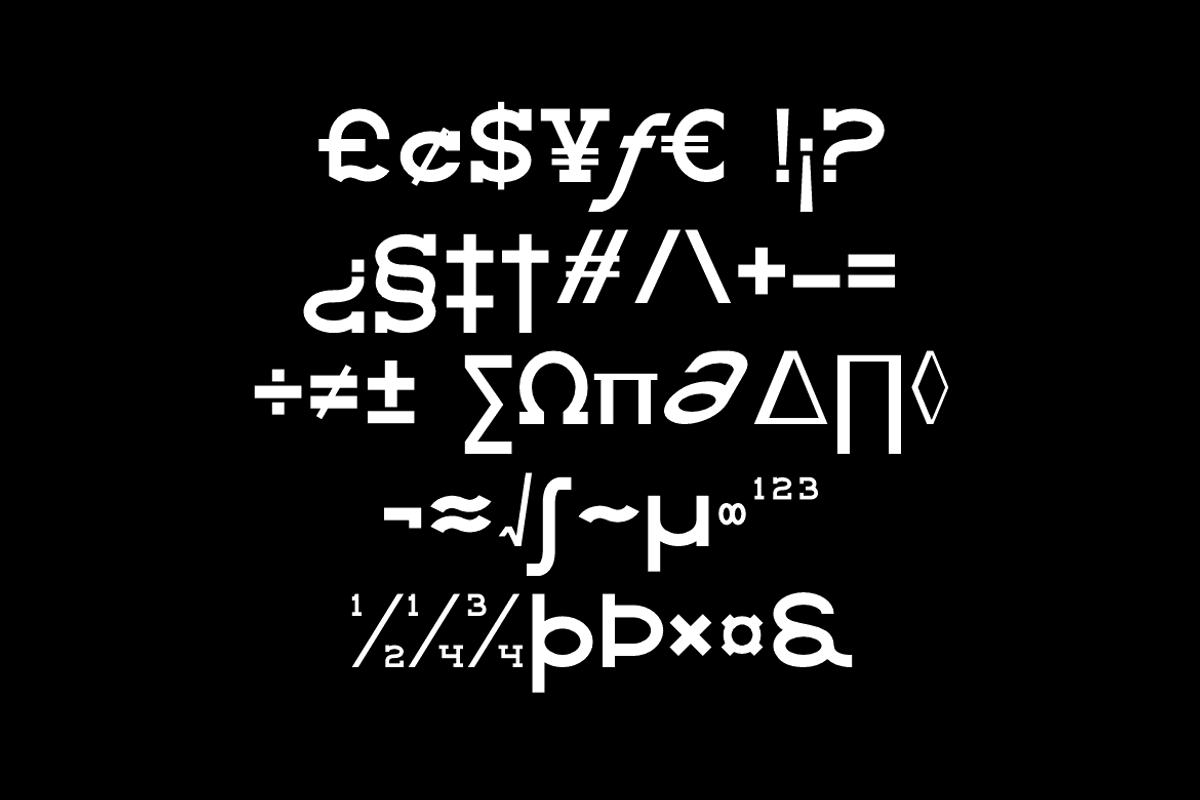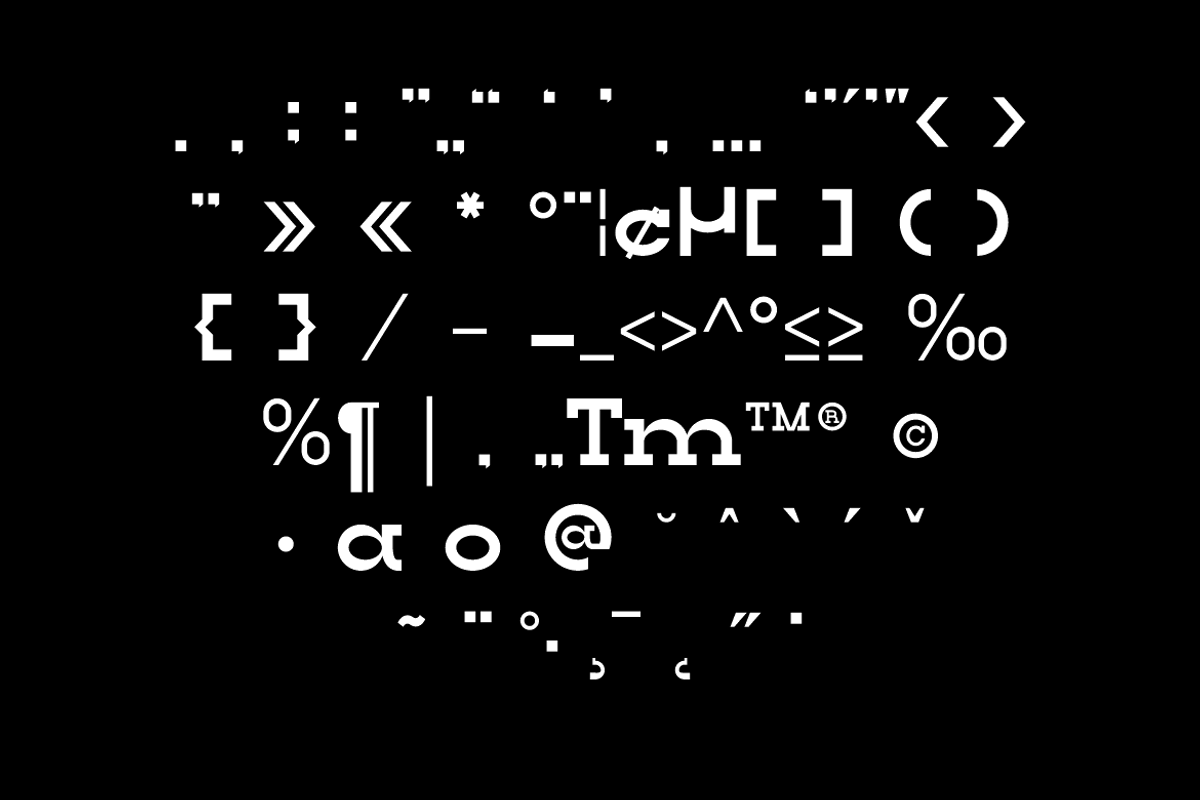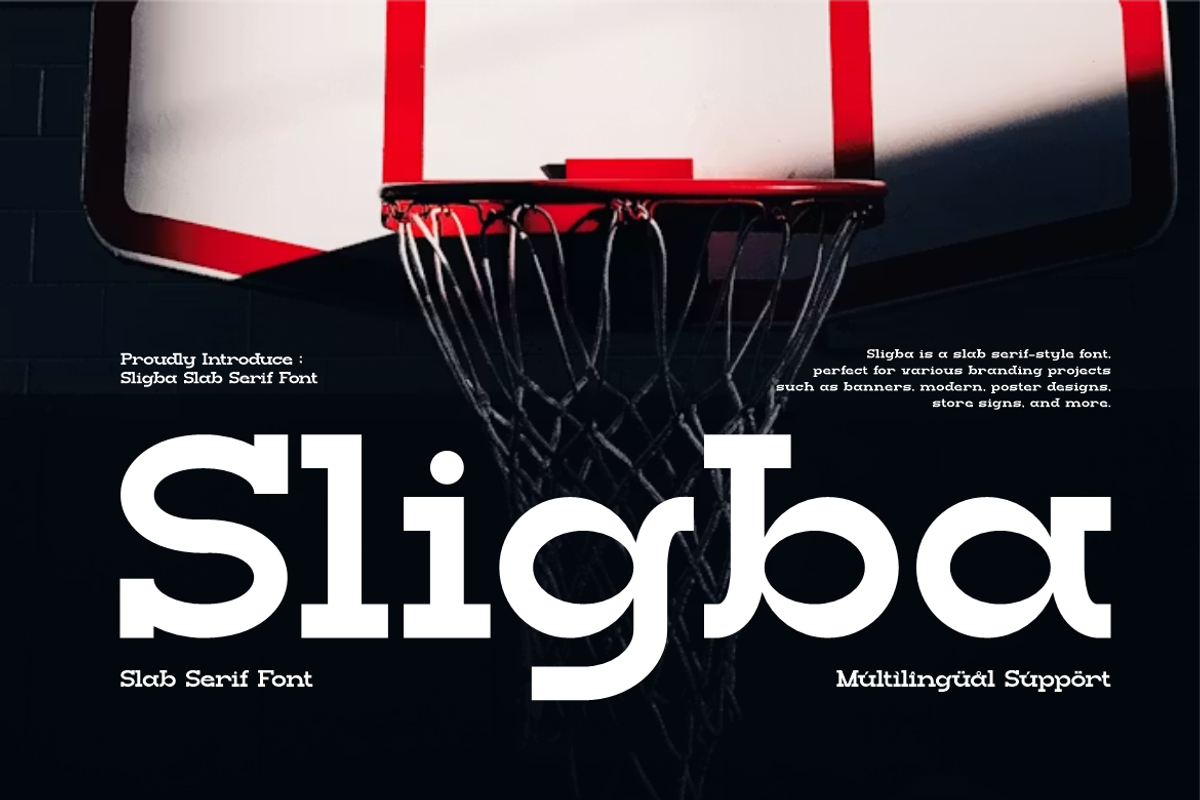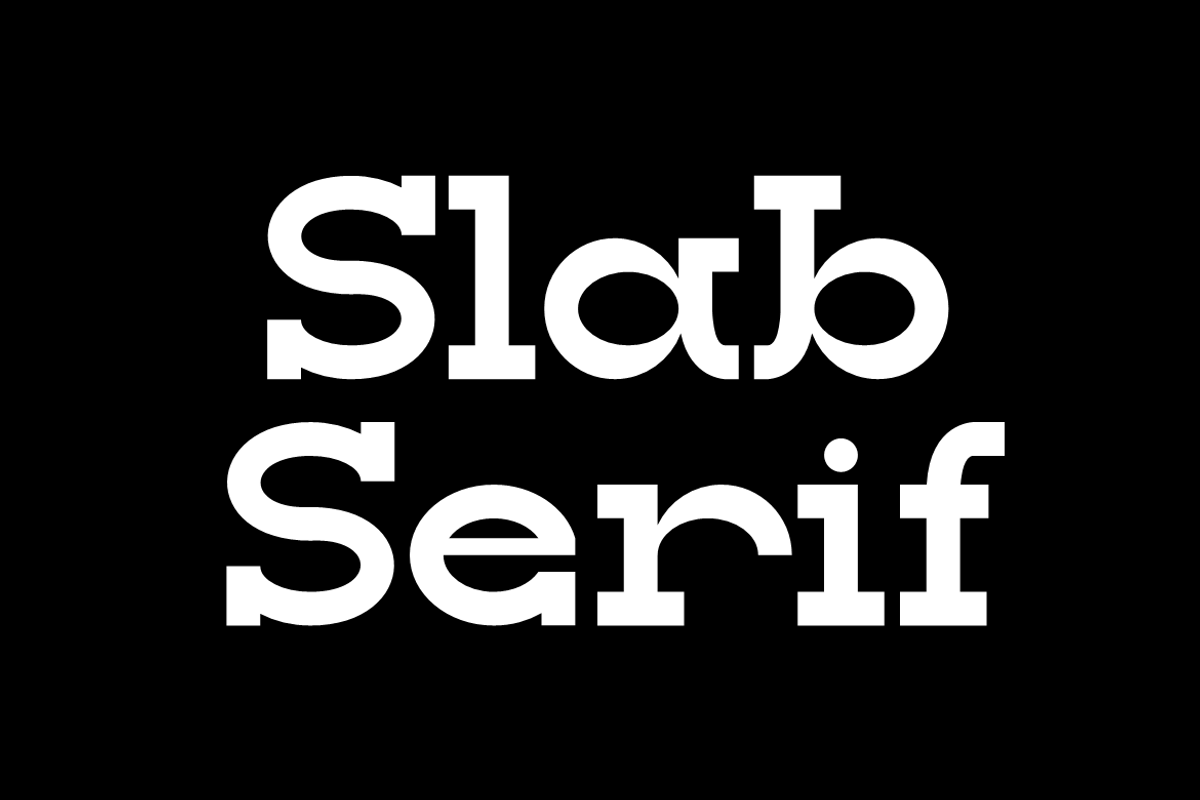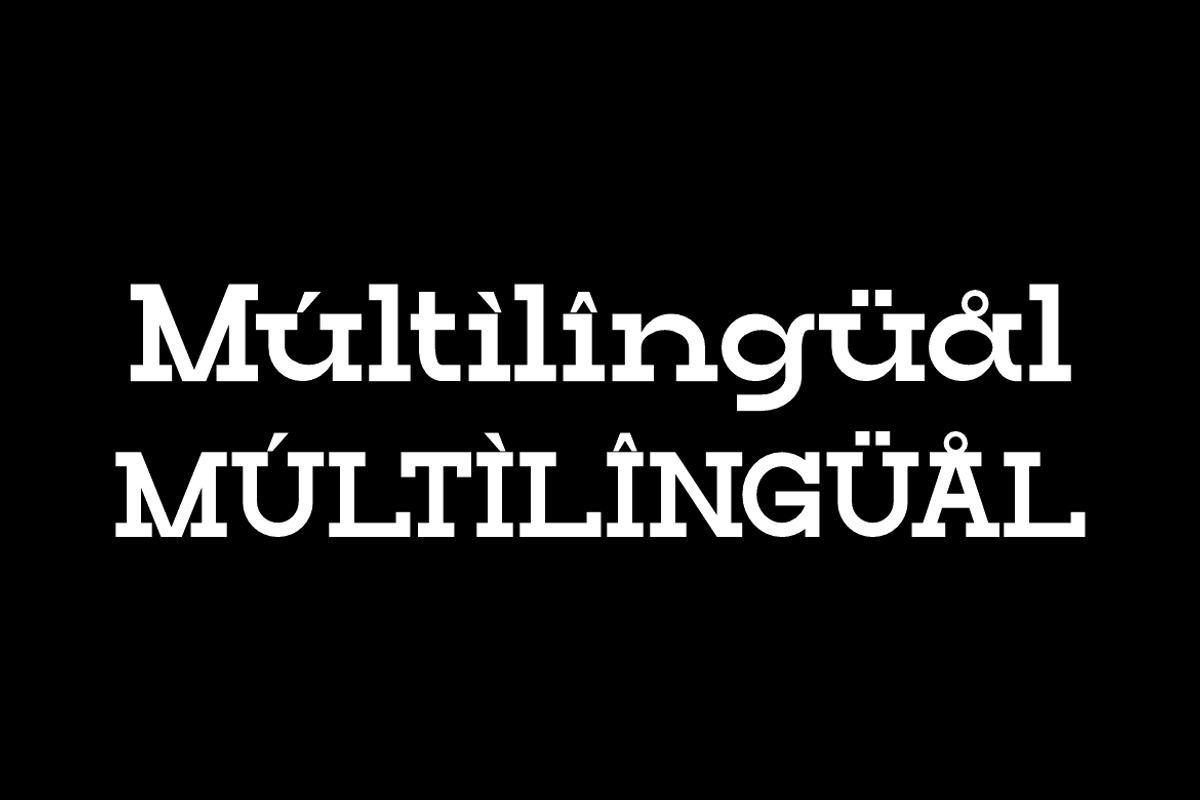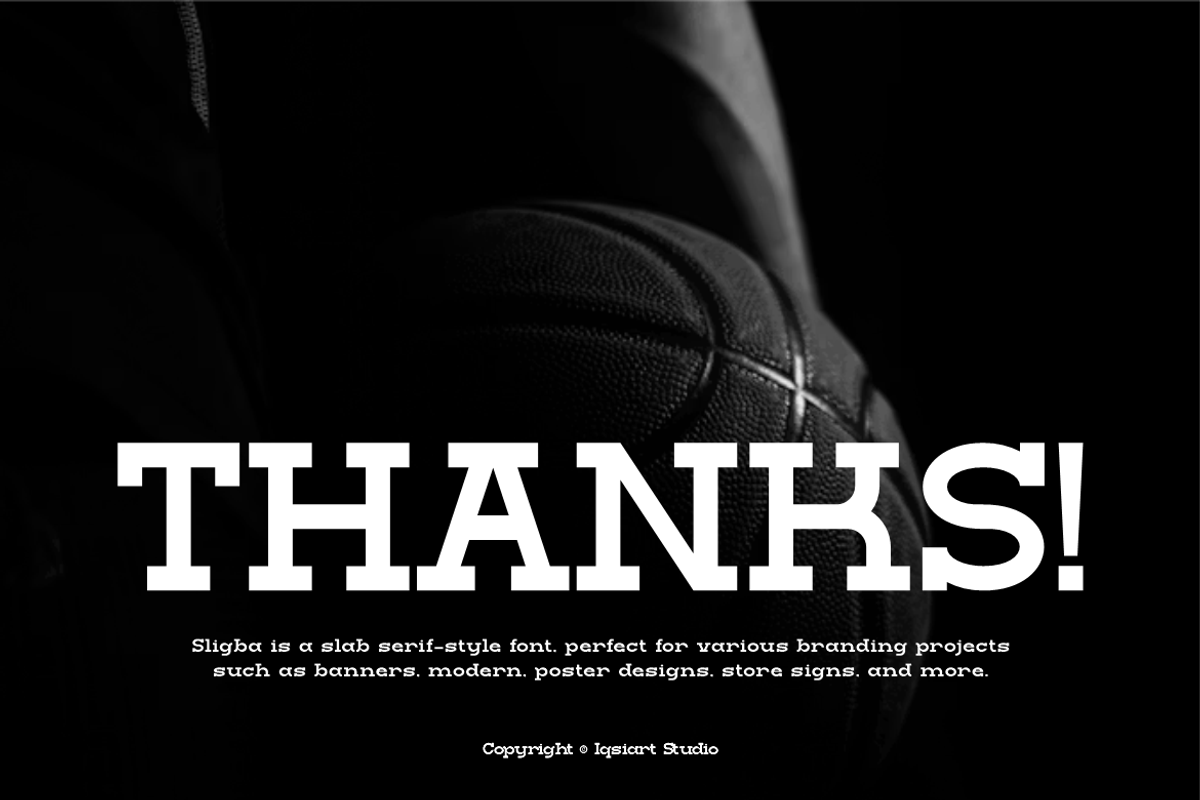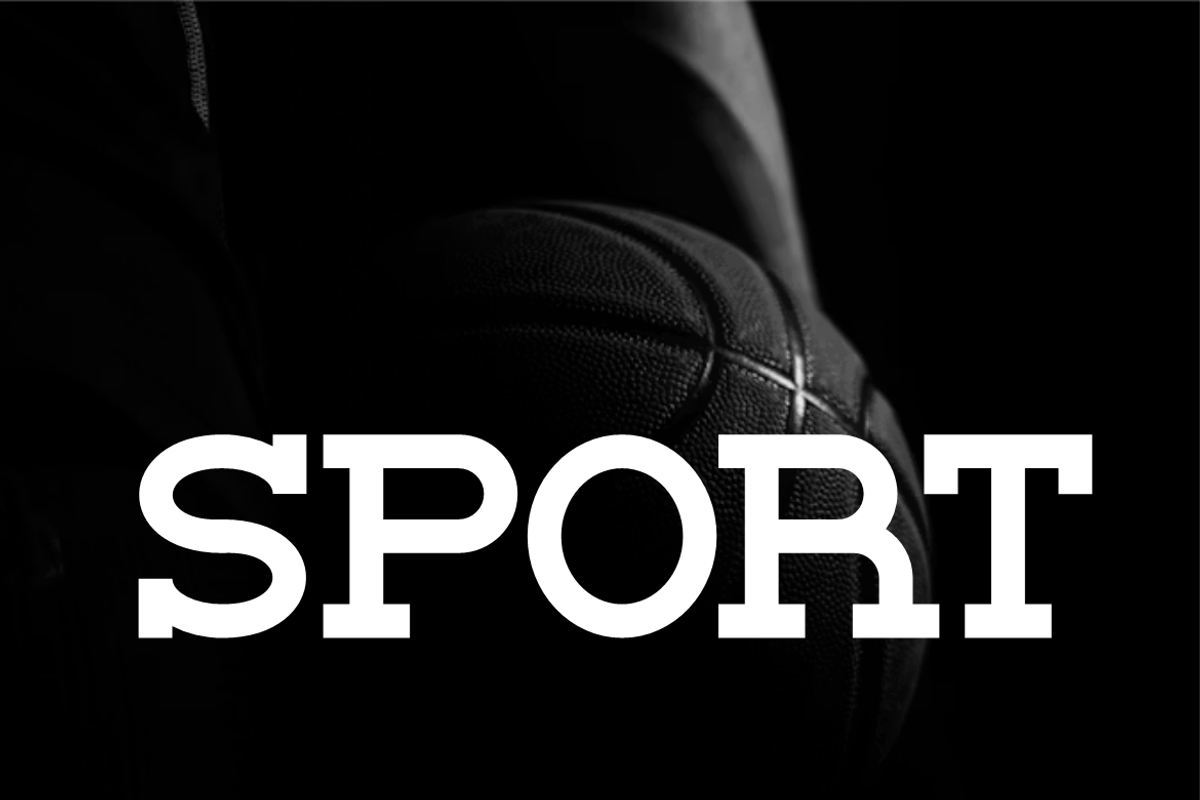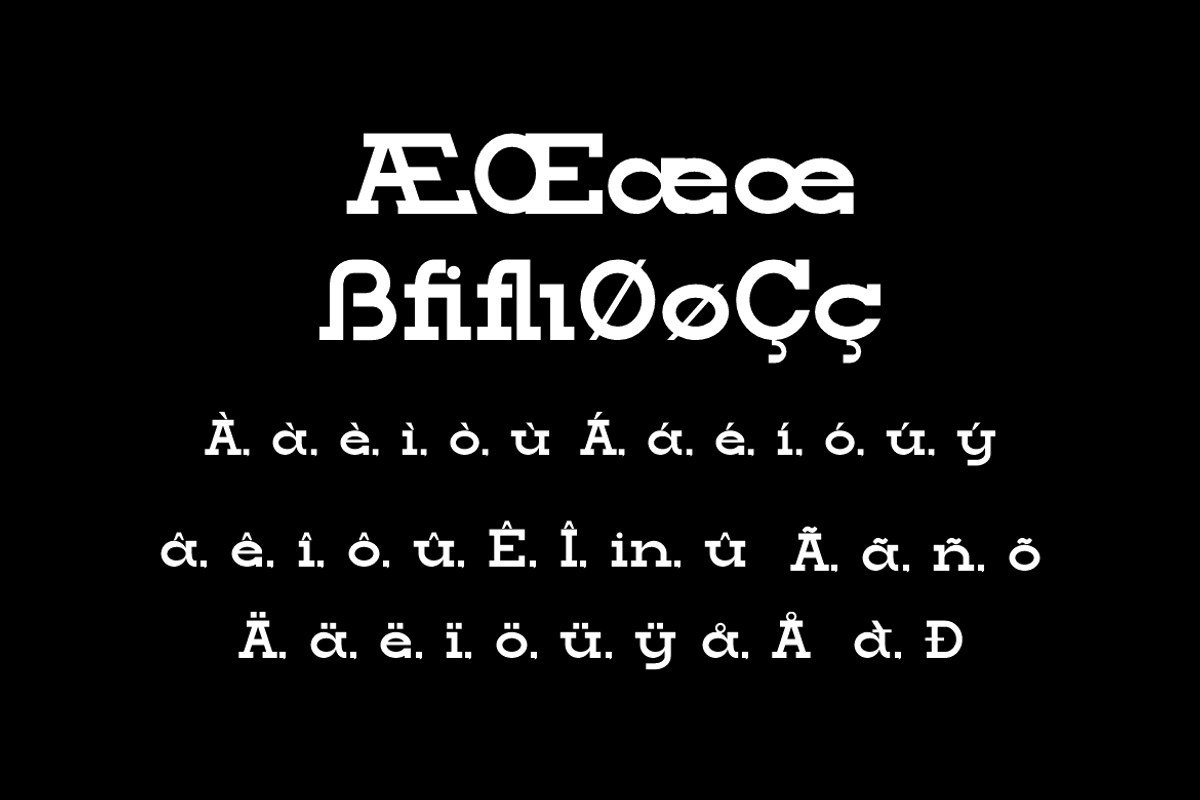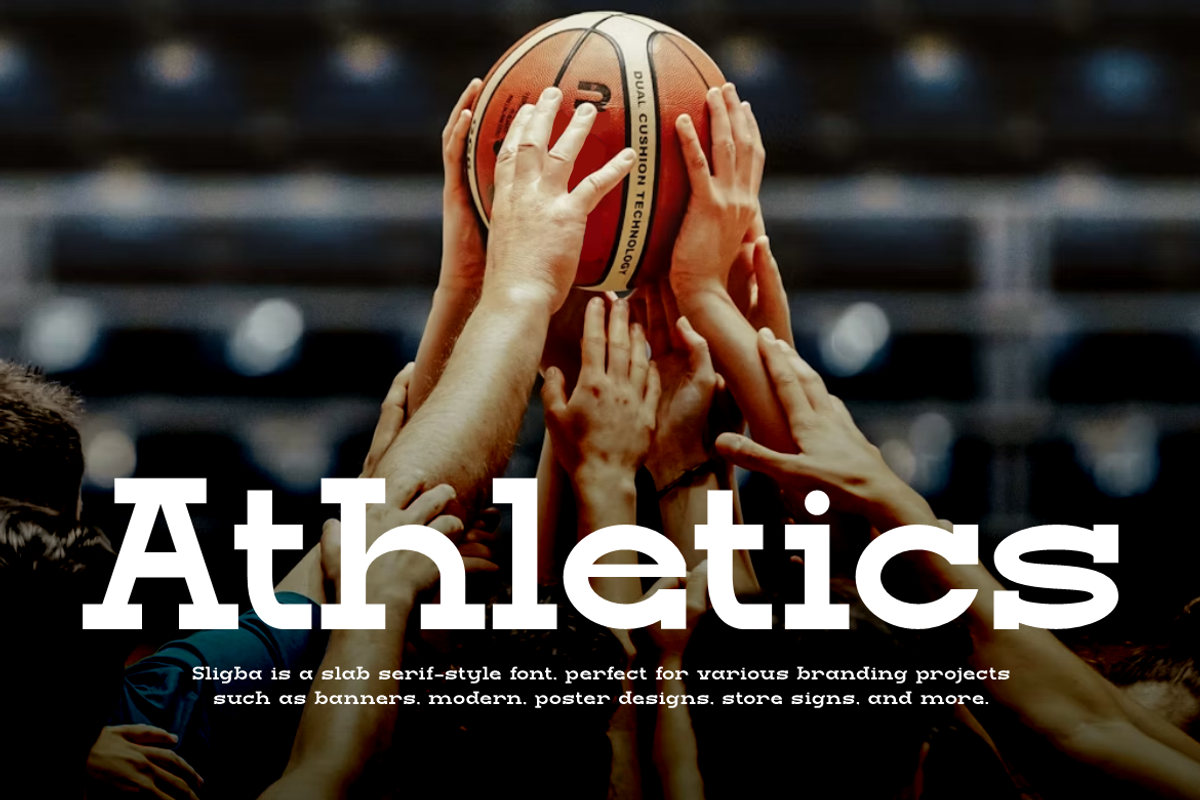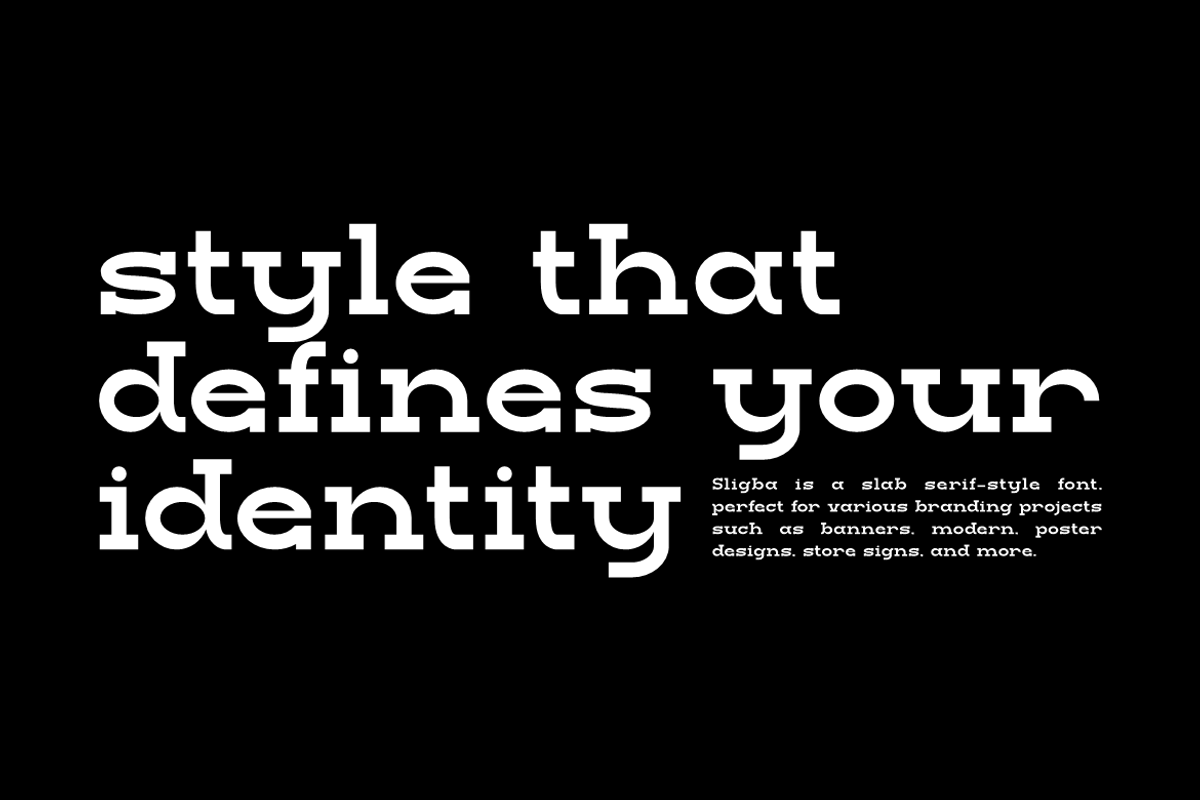
Sligba - Slab Sports Font
Sligba Font is a slab serif and authentic display typeface
that suits a variety of design needs. We offer a wide range of themes